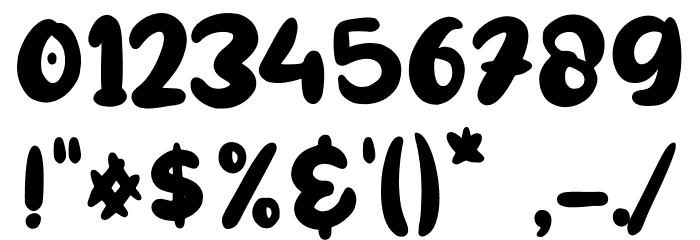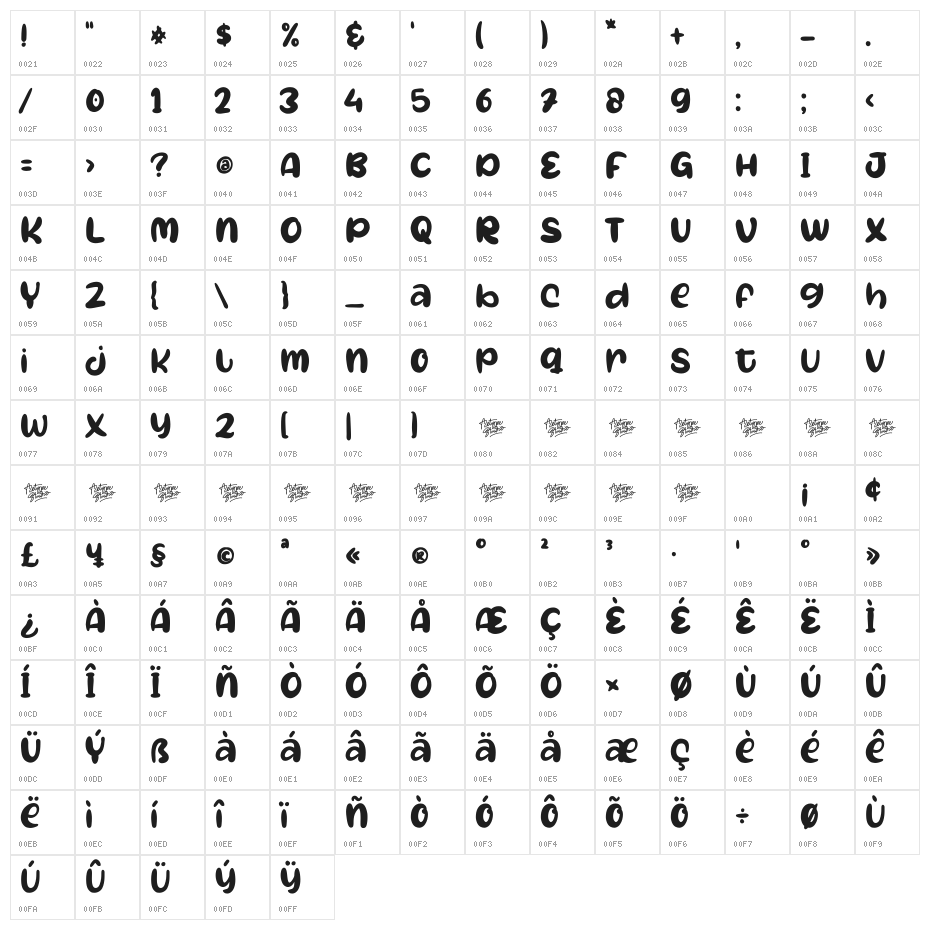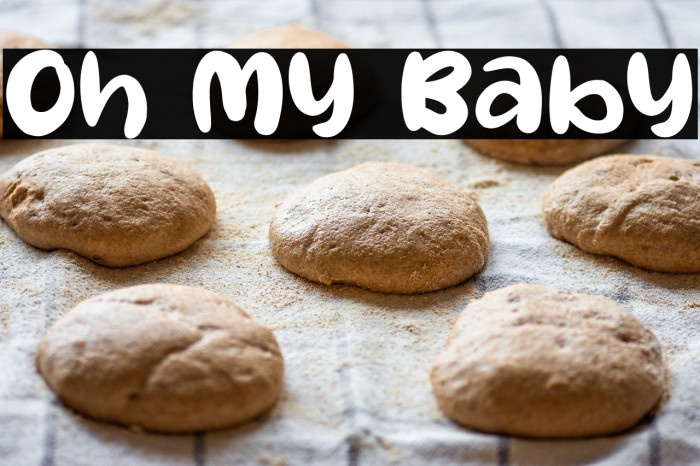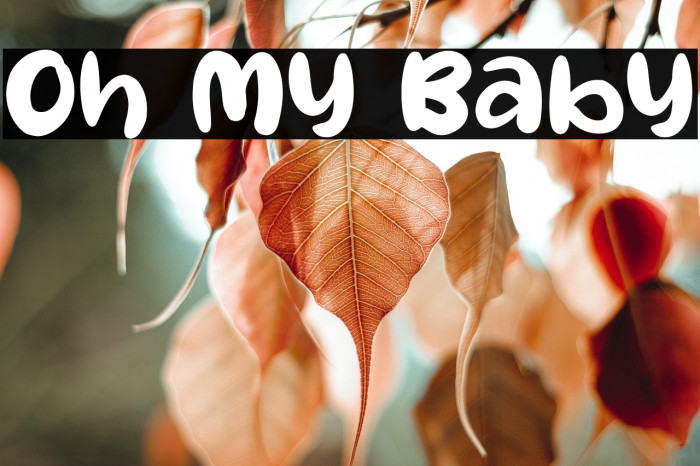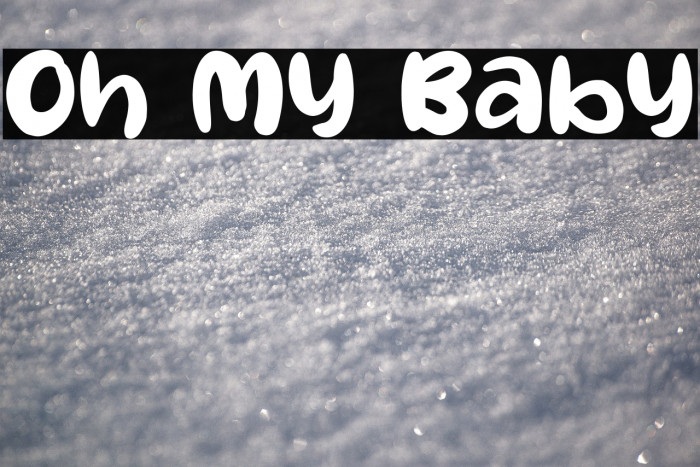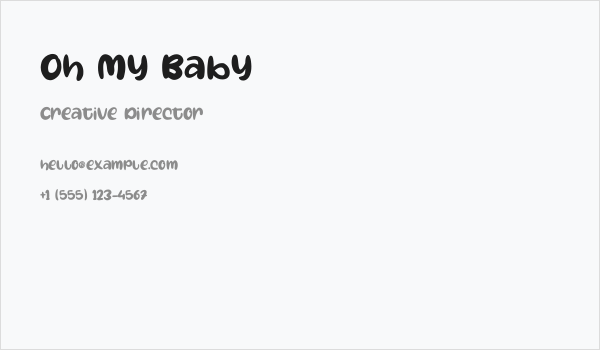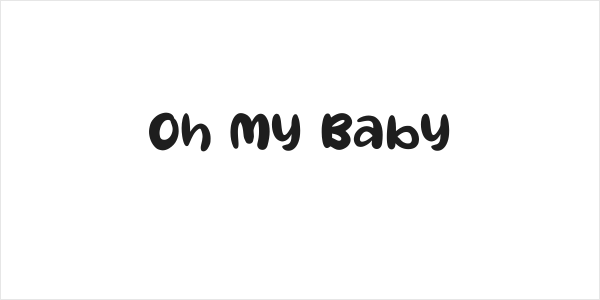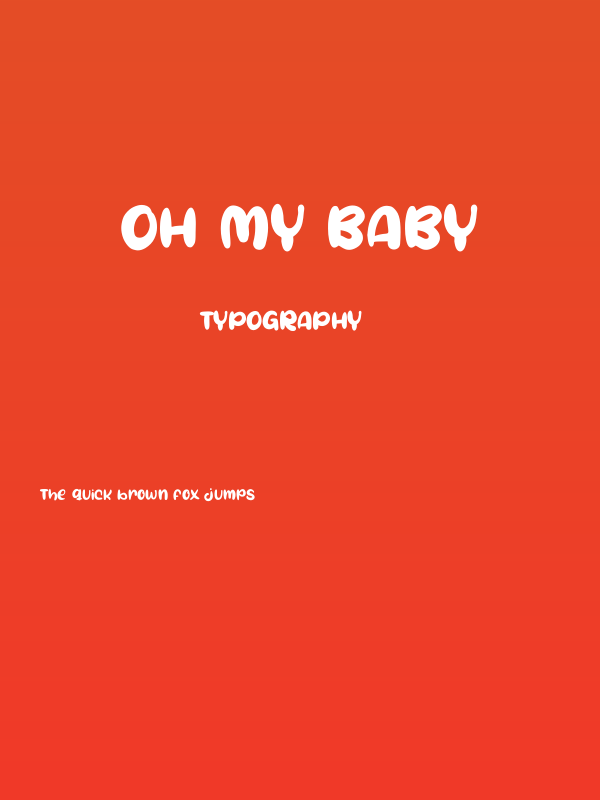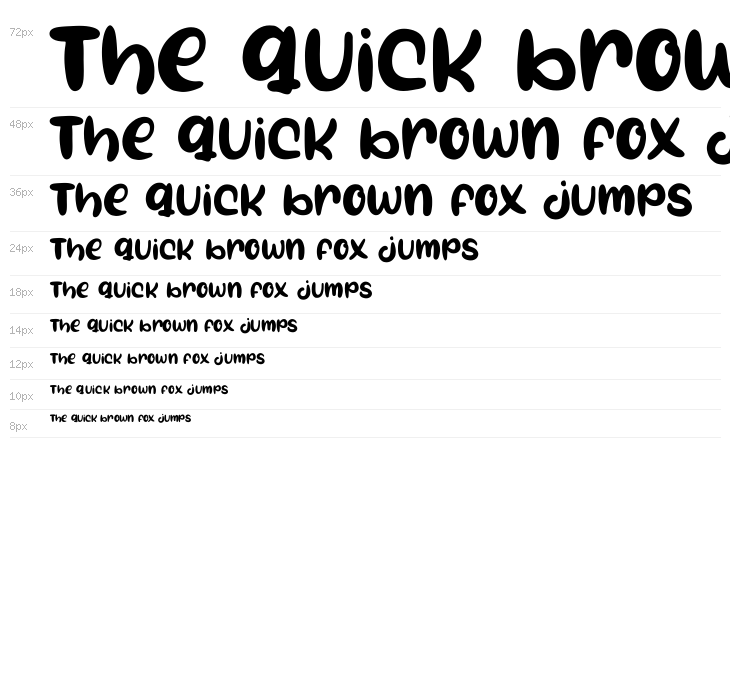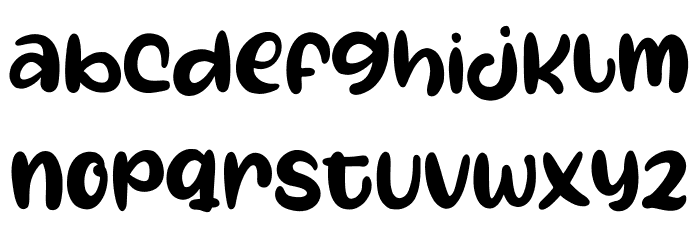
Oh My Baby Font
Oh My Baby Description
This font features a playful and bold style with rounded edges and a bubbly appearance. The characters are thick and have a consistent weight throughout, giving them a strong presence on the page. The uppercase and lowercase letters maintain a uniform width, contributing to a cohesive look. The numbers and special characters follow the same design principles, ensuring visual harmony across all elements. The overall design is reminiscent of handwriting, with a touch of whimsy that makes it suitable for creative and informal projects. Its boldness and unique style make it stand out, while the rounded forms add a friendly and approachable feel.